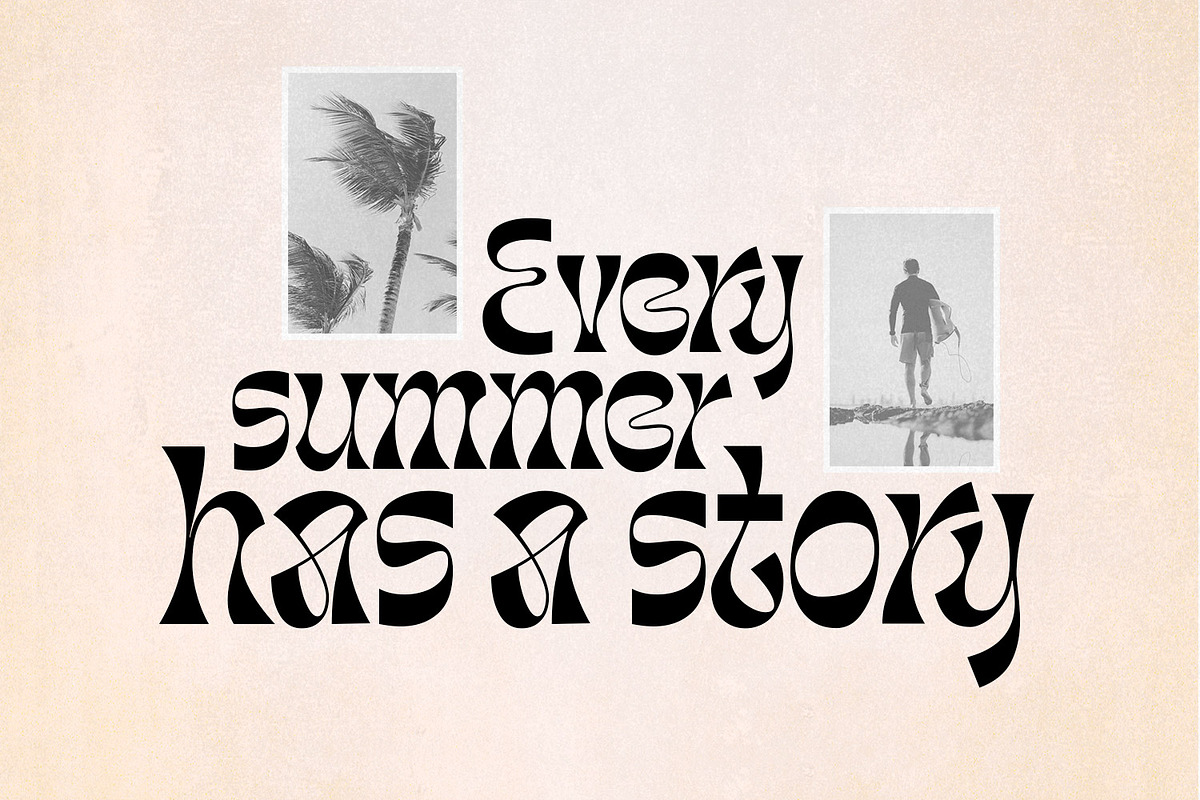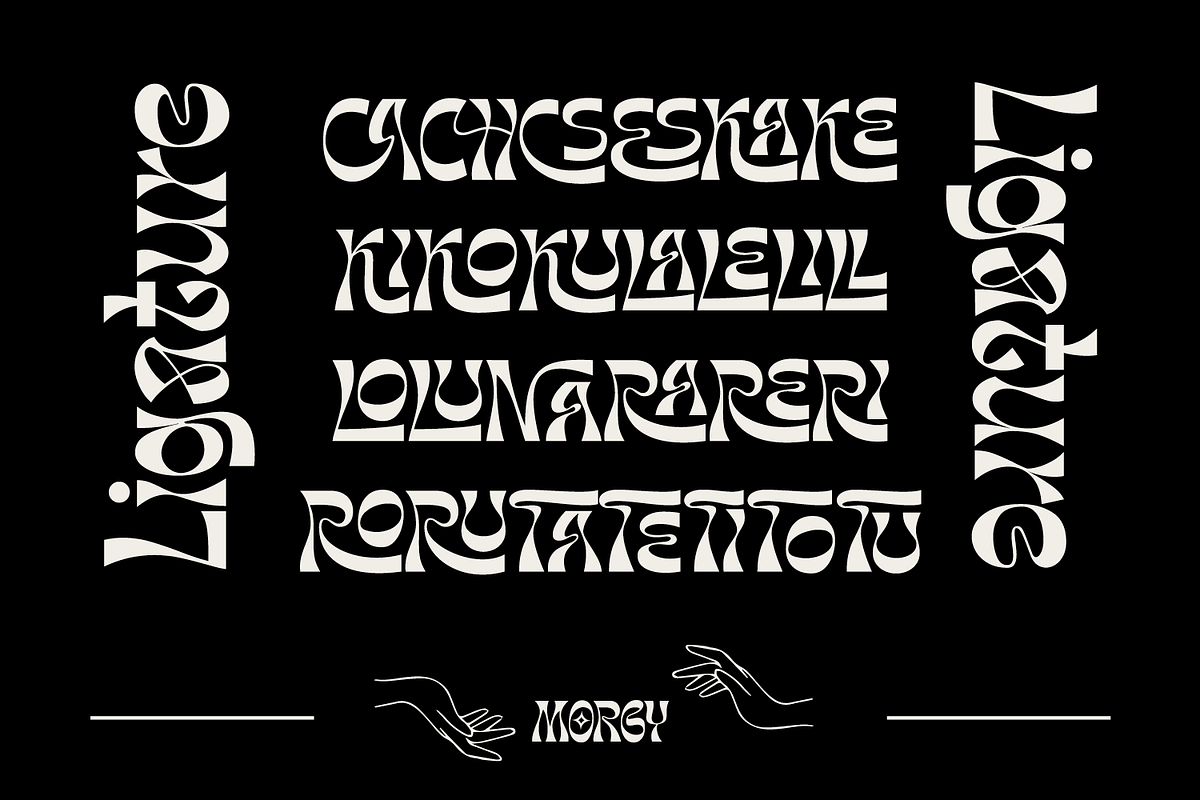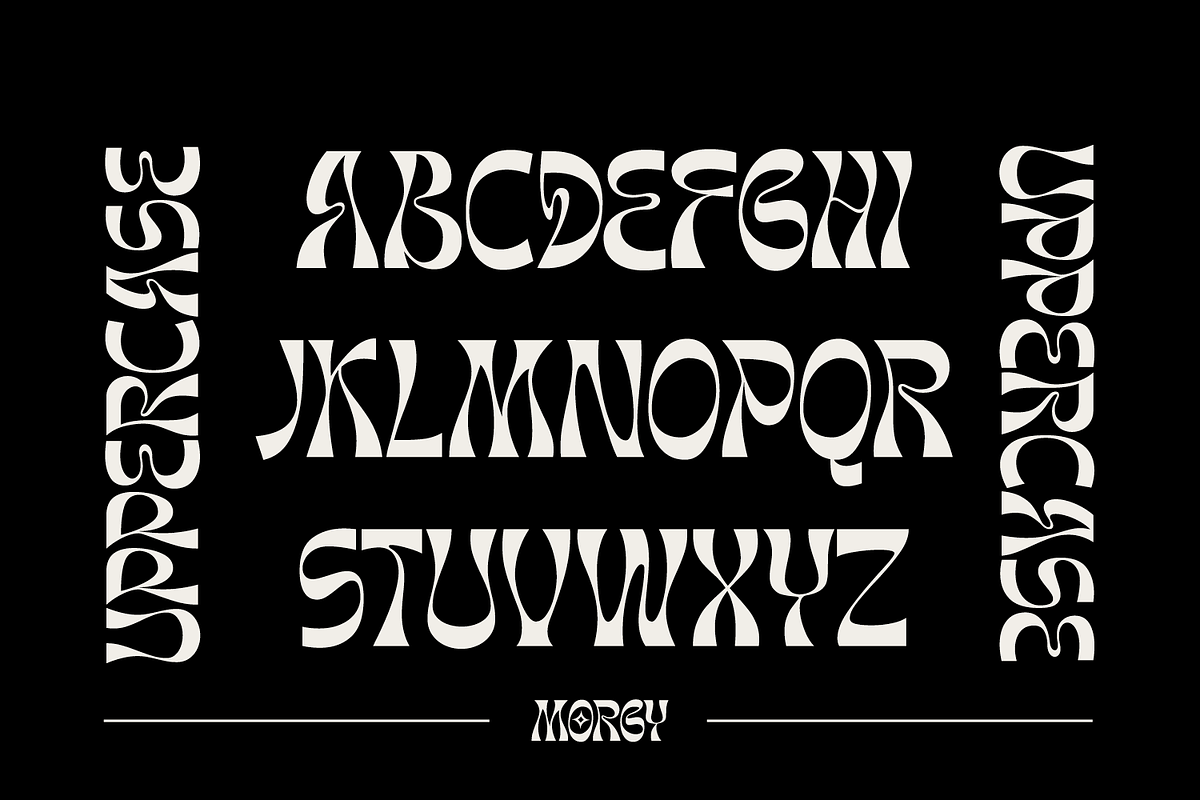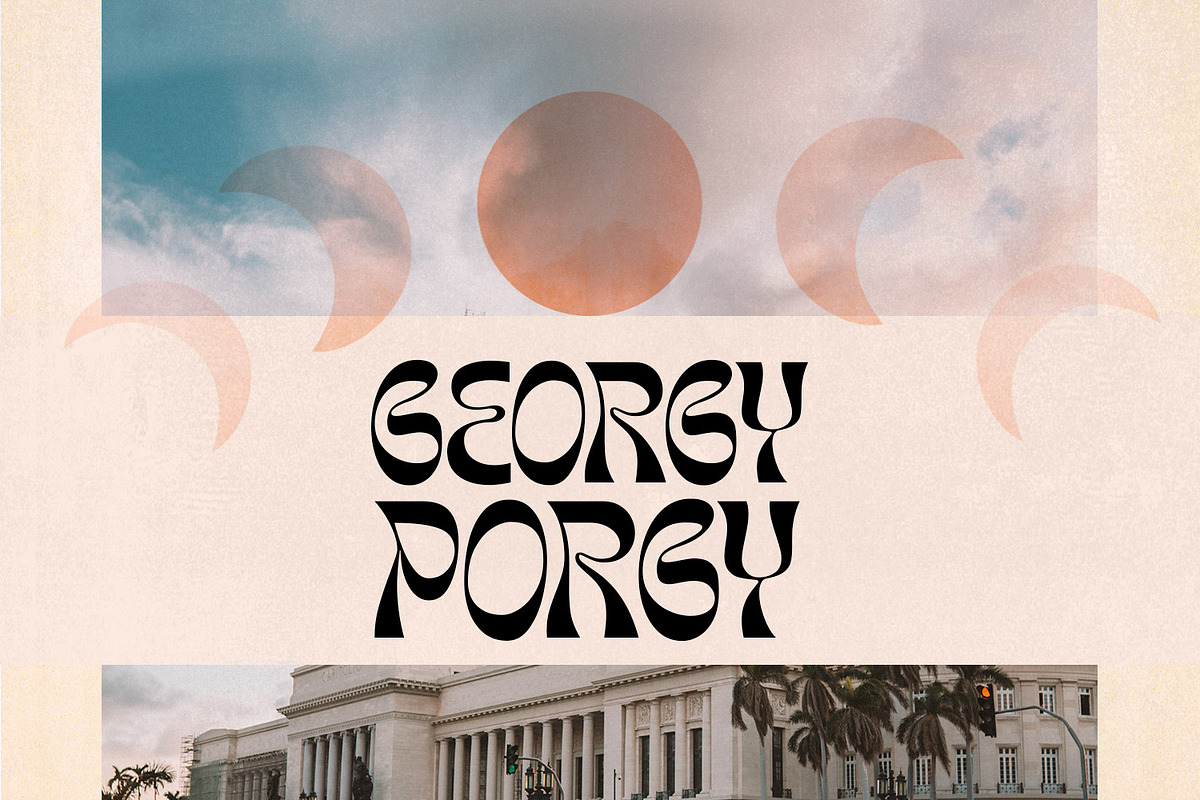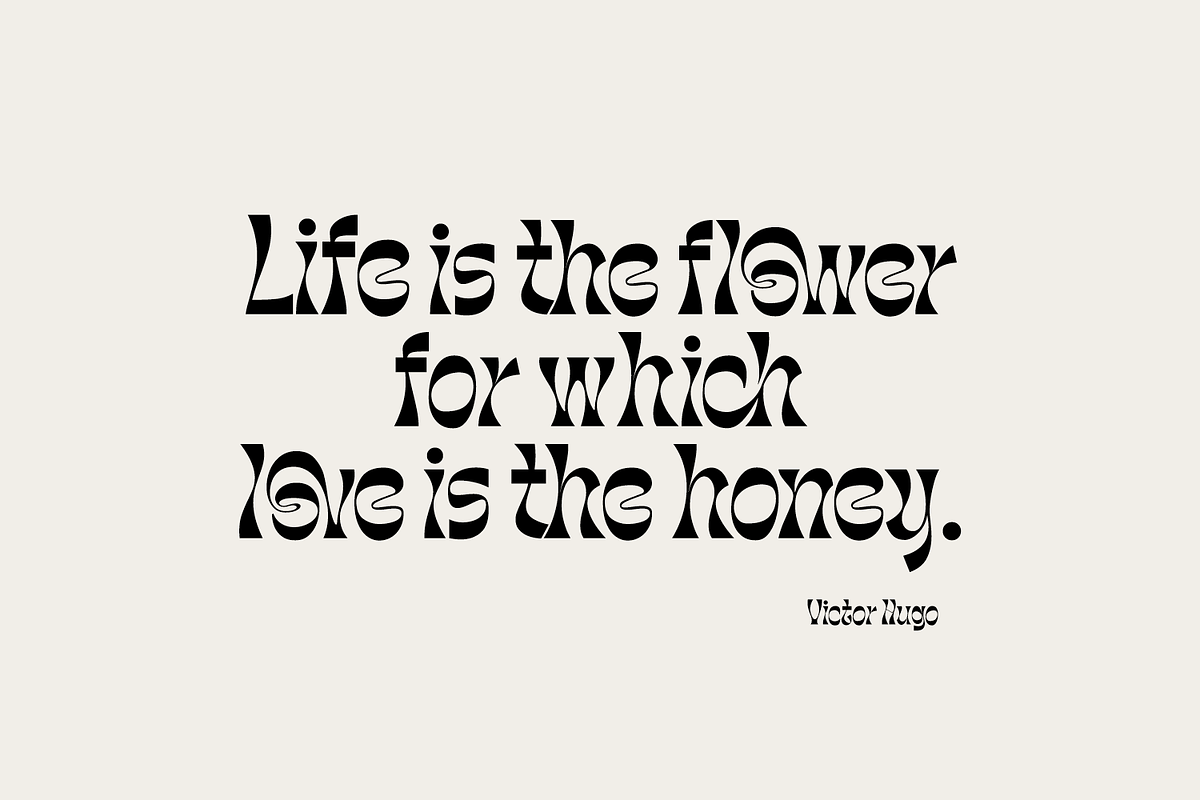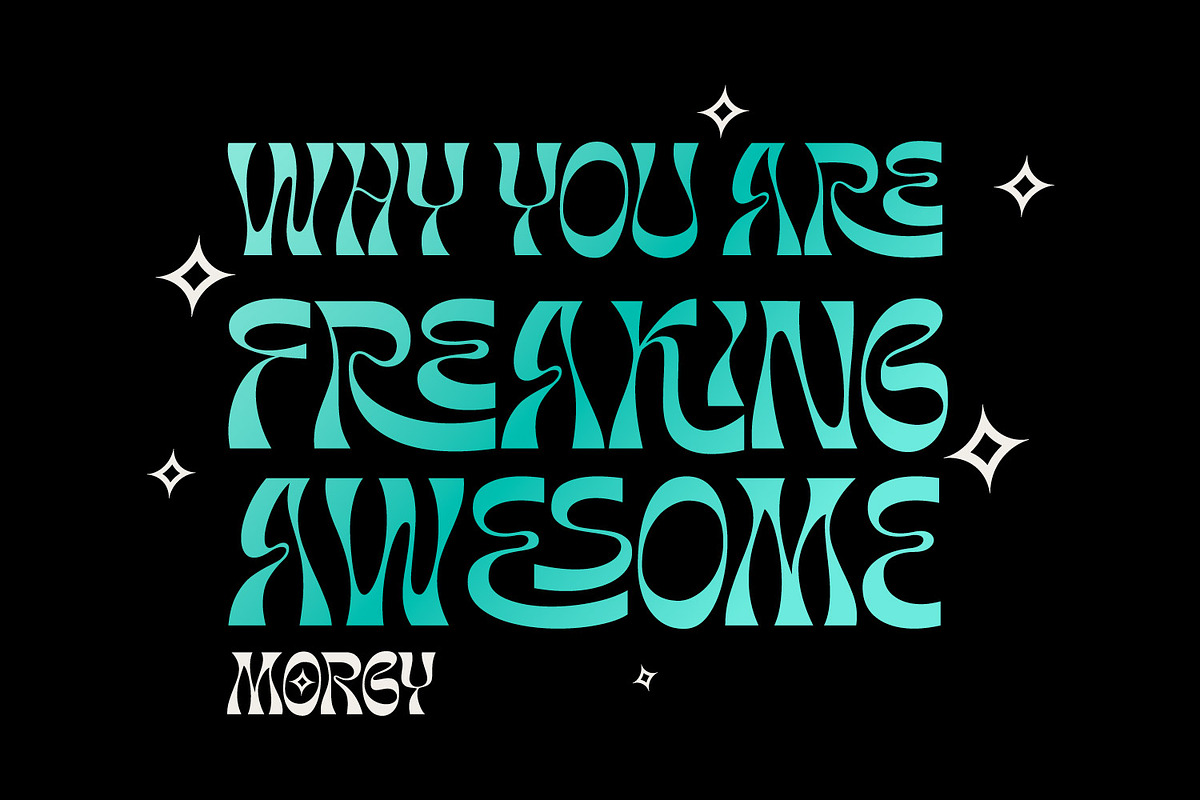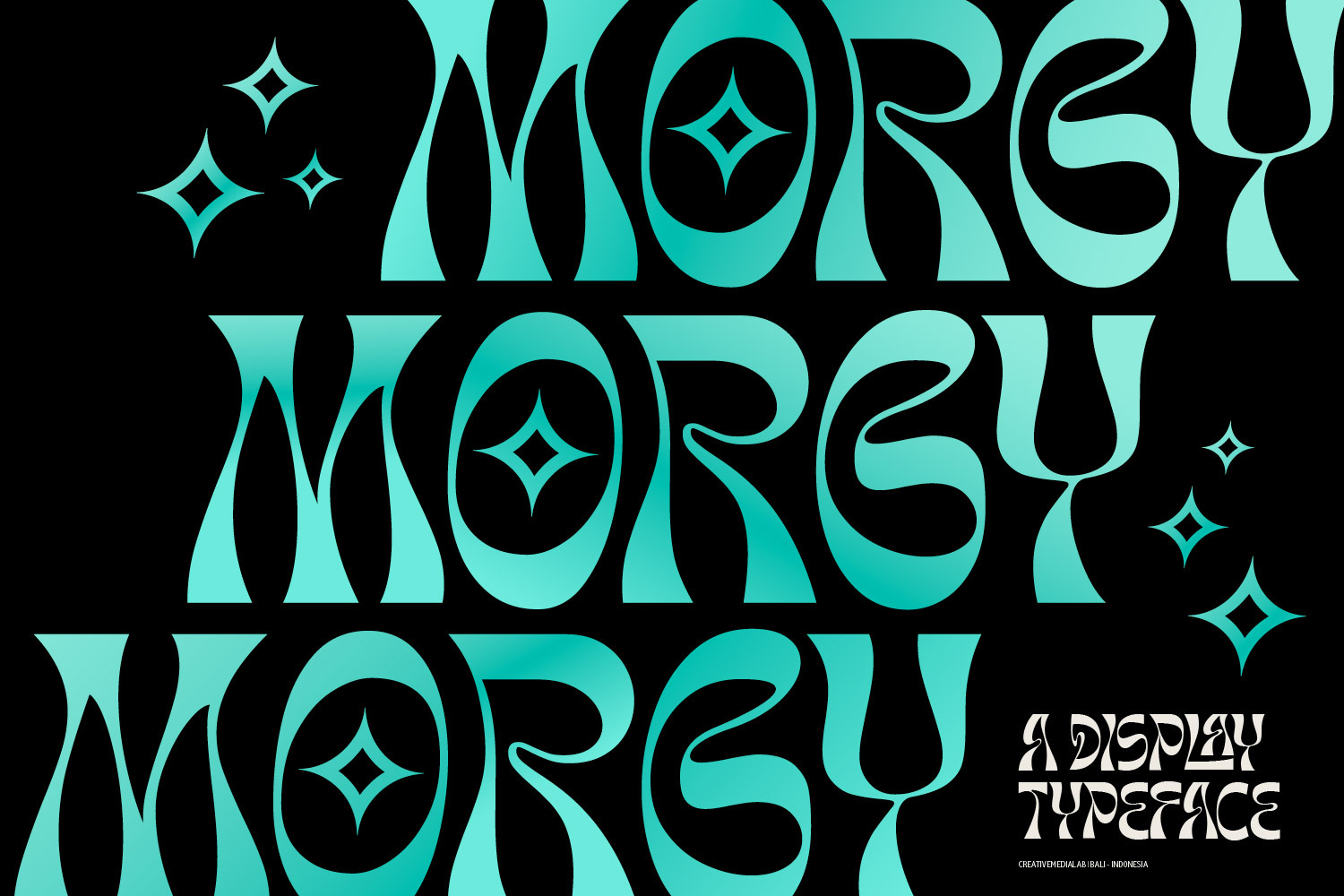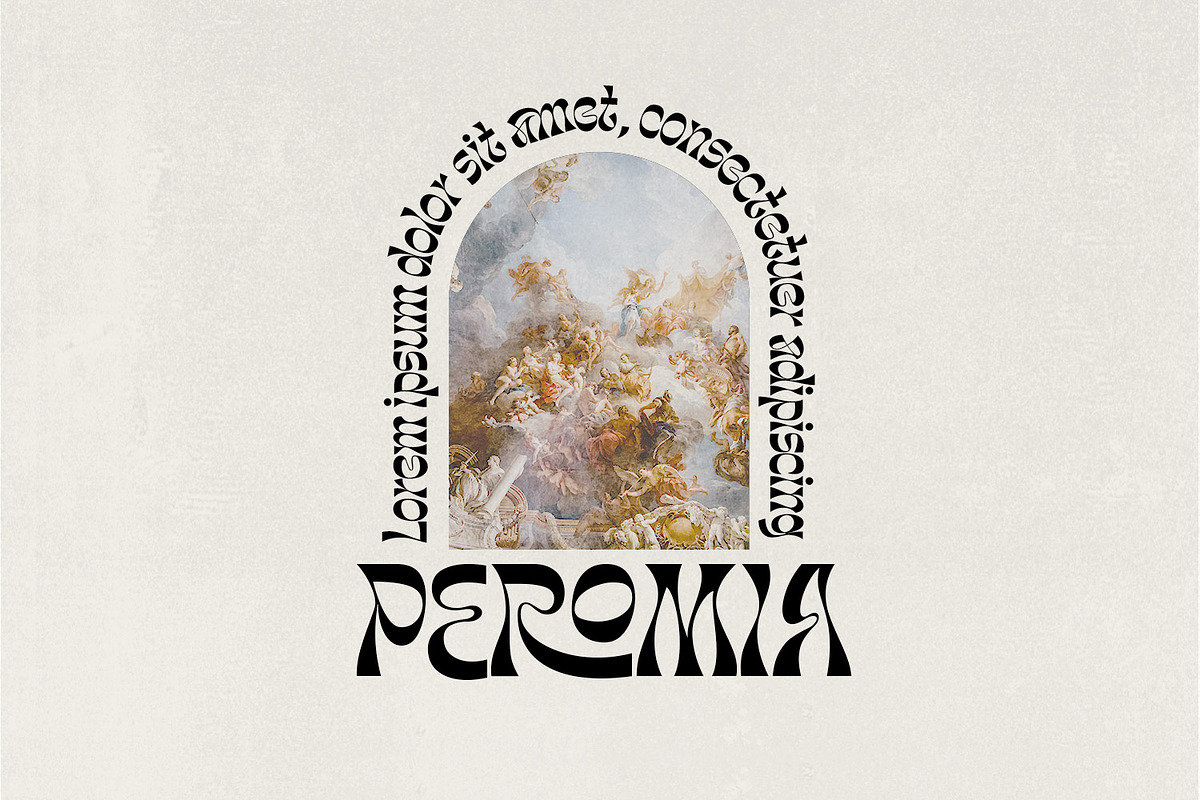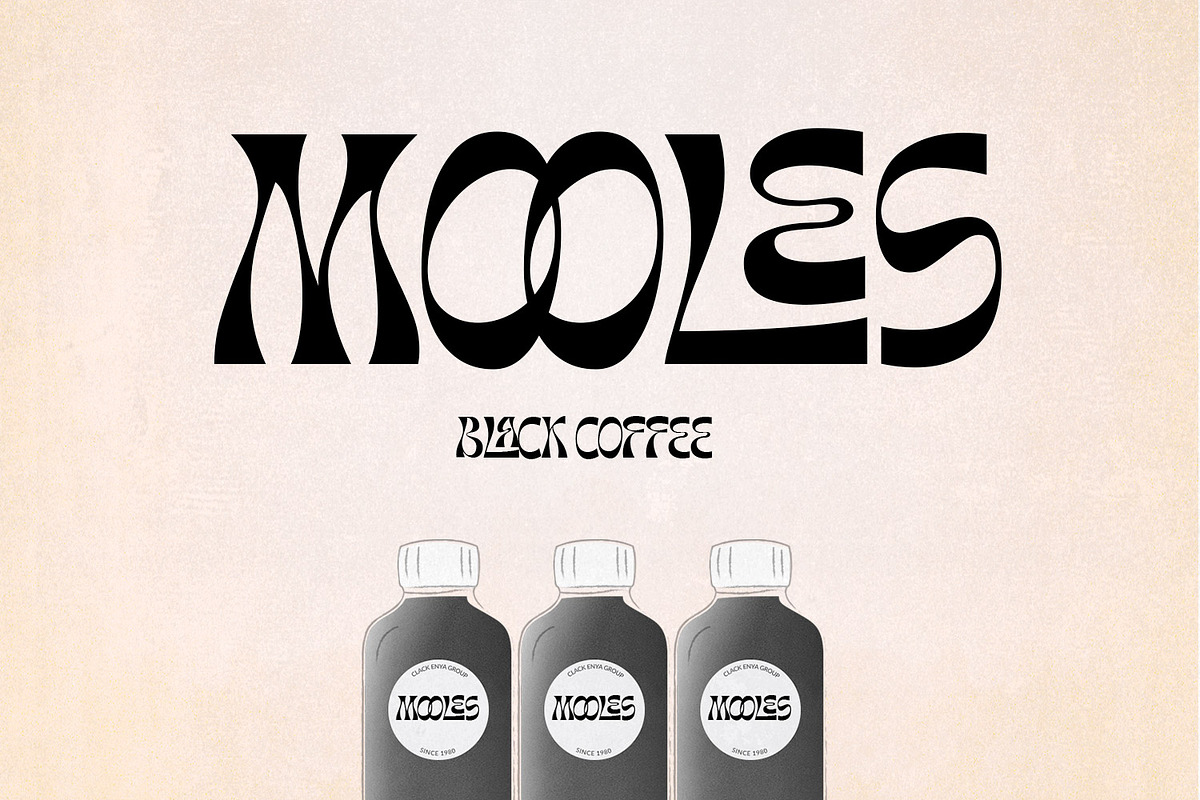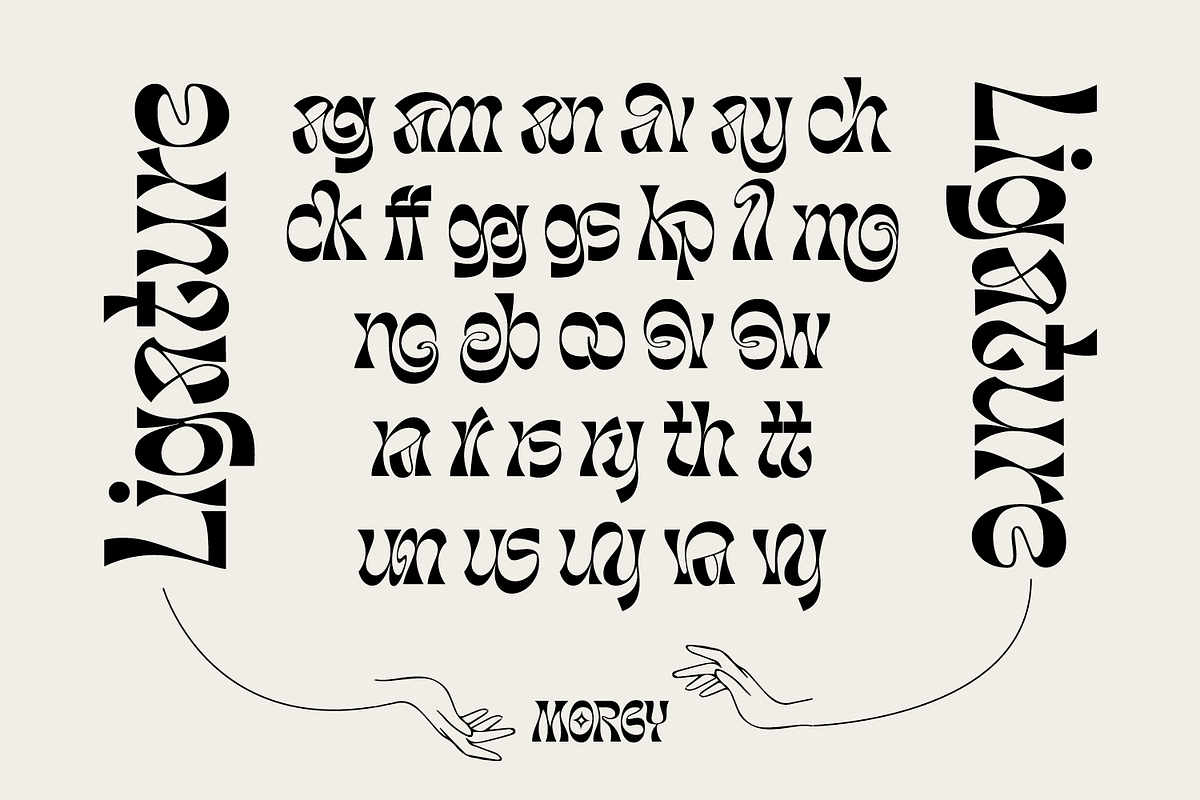
Morgy Display font
Introducing Morgy a font that displays a cheerful and dynamic impression with 50+ ligatures and alternates suitable for all modern design concepts from posters to branding
Supported Languages
Western Europe, Central/Eastern Europe, Baltic, Turkish, Romania